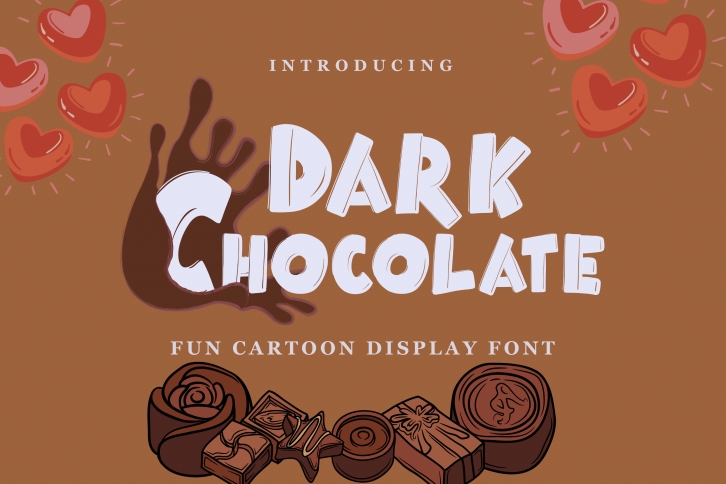
Dark Chocolate is a fun and cartoon-like display font. No matter the topic, this font will be an incredible asset to your fonts’ library, as it has the potential to elevate any creation.Â